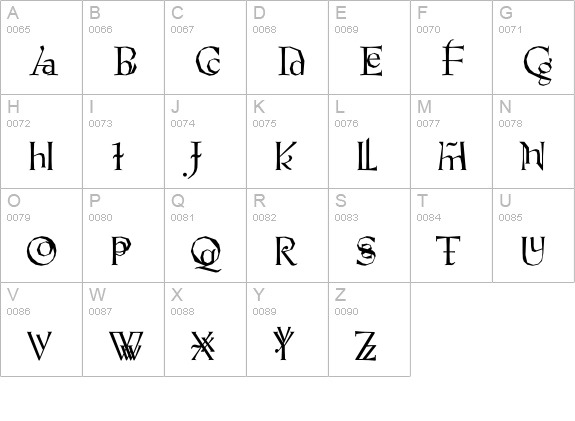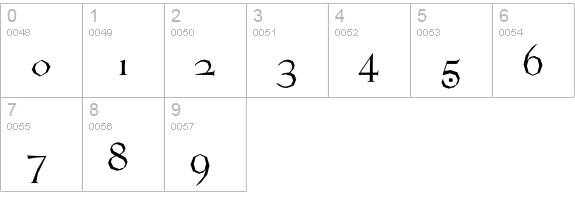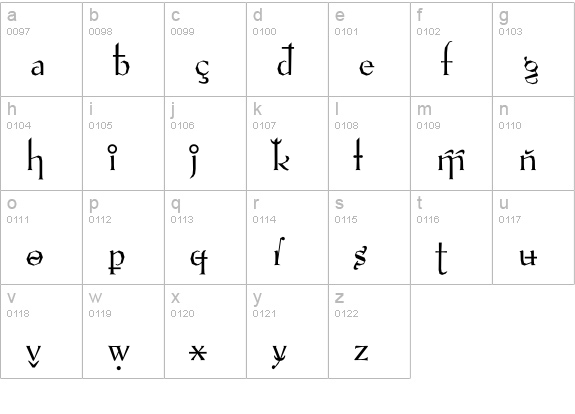
VTPompousCircumstance Chiseled Font Details
VTPompousCircumstance Chiseled font is a captivating and sophisticated typeface that exudes an air of grandeur and elegance. With its meticulously chiseled edges and intricate details, this font commands attention and leaves a lasting impression. Designed with a touch of opulence, VTPompousCircumstance Chiseled font is perfect for projects that require a refined and prestigious look. Whether it's for invitations, branding materials, or editorial designs, this font adds a touch of class and sophistication to any project. What makes VTPompousCircumstance Chiseled font even more enticing is that it is freely available to download at FontsMarket.com. This means that you can effortlessly incorporate this luxurious font into your designs without any additional cost. As a designer, having access to high-quality fonts that are free is a valuable asset, and VTPompousCircumstance Chiseled font certainly delivers on that front. The versatility of VTPompousCircumstance Chiseled font is another standout feature. It effortlessly adapts to various design styles, whether it's classic and traditional or modern and contemporary. Its bold and confident letterforms make a statement, while its intricate chiseled details add a touch of uniqueness and sophistication. In addition, VTPompousCircumstance Chiseled font boasts excellent legibility, ensuring that your messages are conveyed clearly and effectively. Its well-balanced proportions and carefully crafted letterforms make it a pleasure to read, whether in small sizes or at larger display sizes. Overall, VTPompousCircumstance Chiseled font is a timeless and versatile typeface that will elevate your designs to new levels of sophistication. With its free availability for download at FontsMarket.com, you can't go wrong with incorporating this font into your projects. So why wait? Download VTPompousCircumstance Chiseled font today and let its elegance and grandeur shine through in your designs.